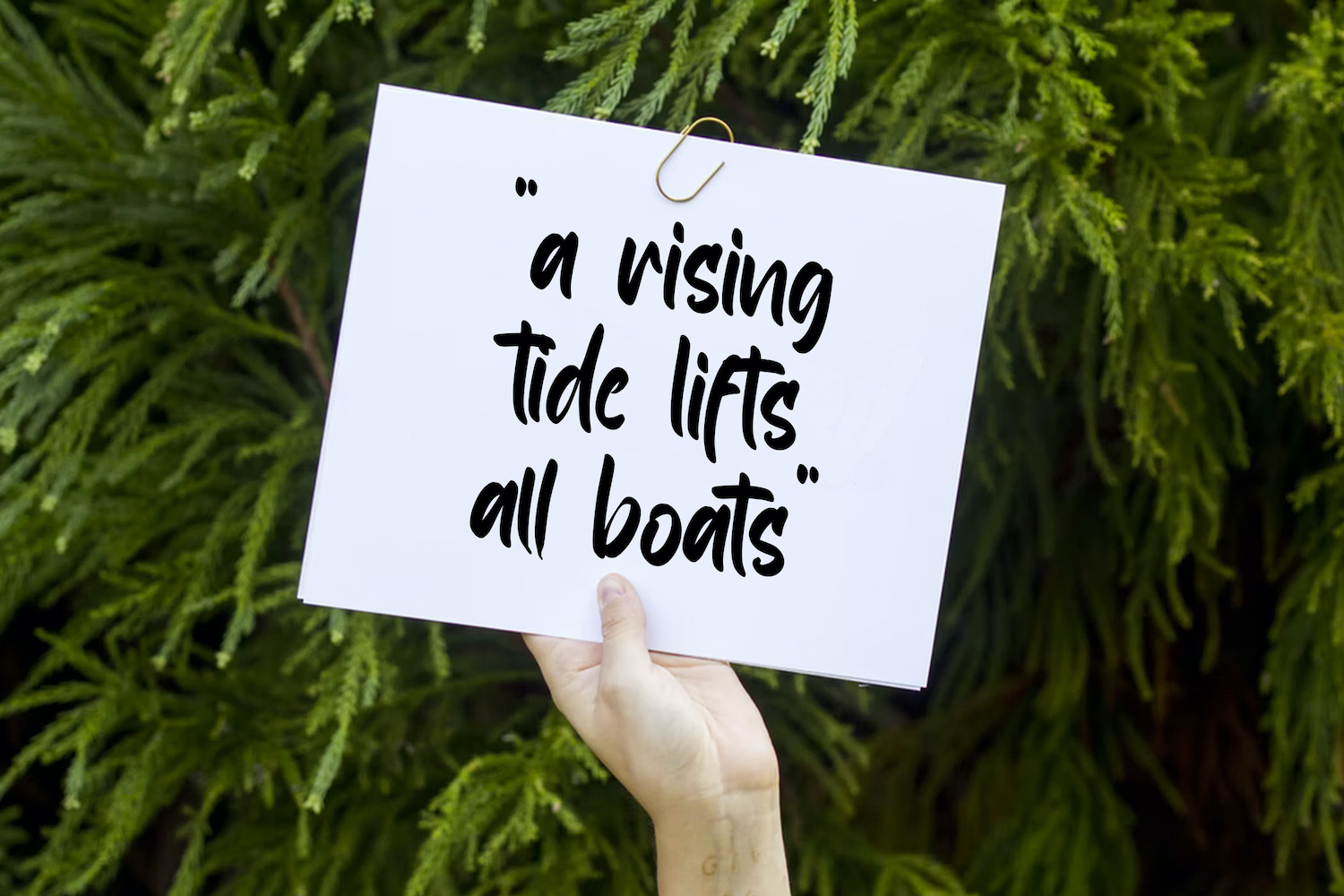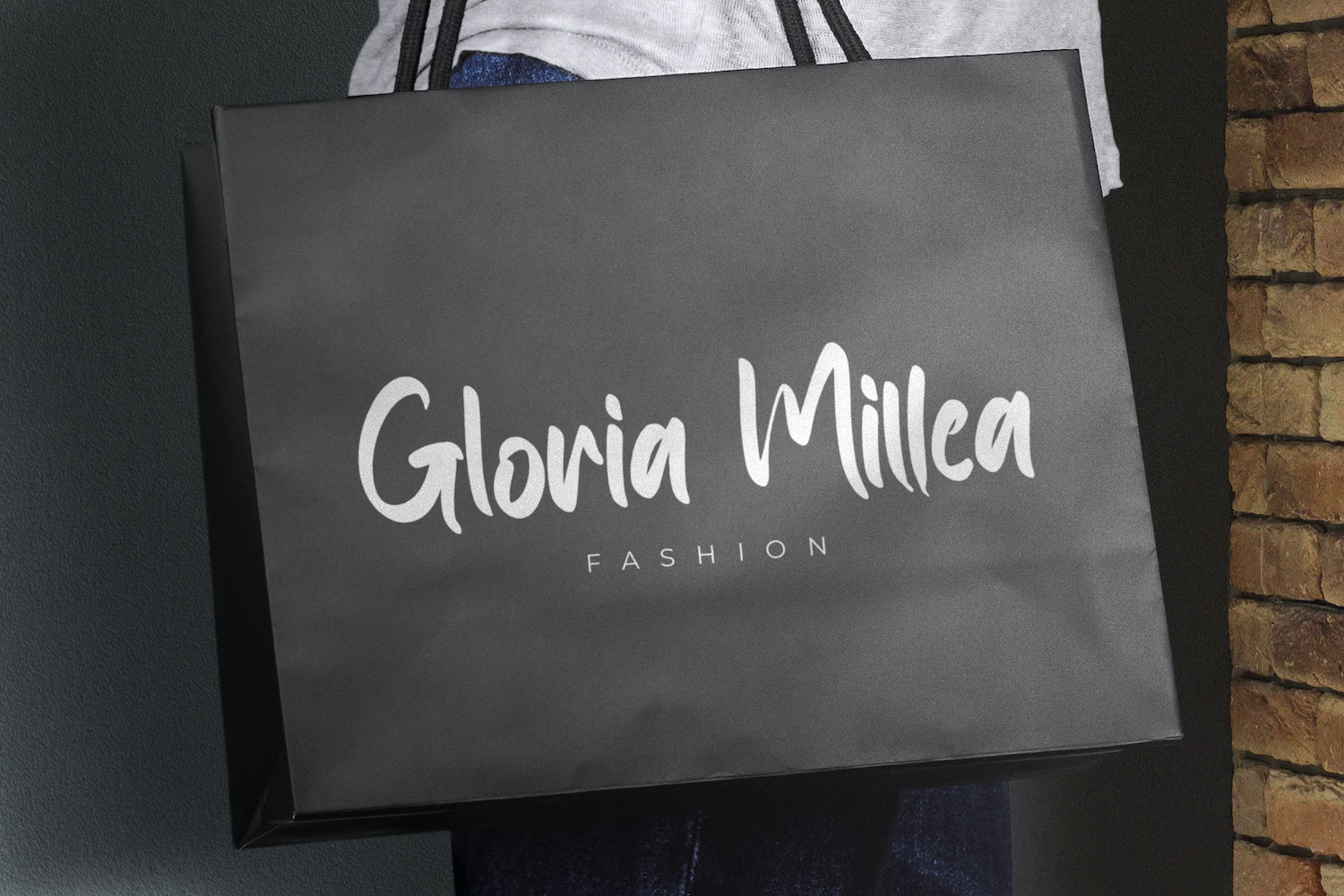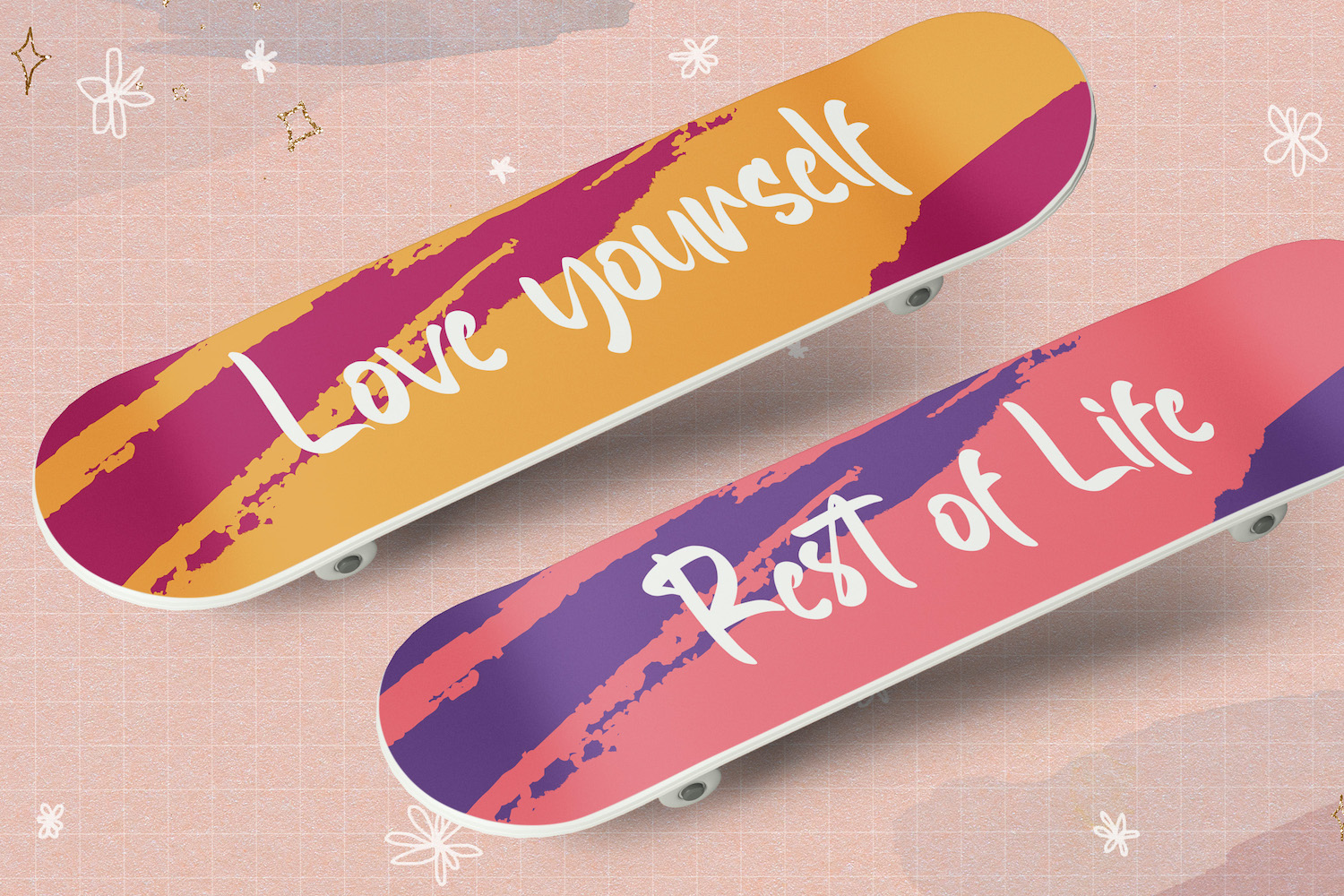
Sang Bintang is a handwritten display typeface by stringlabs that’s built to deliver a clear mood—bold, friendly, and unmistakably human (Free for Personal Use). It focuses on the feeling of real lettering: confident strokes, soft curves, and small natural irregularities that keep the text alive.
At first glance, it reads like a warm hand-painted note—casual, welcoming, and instantly eye-catching. The characters feel thick and expressive without becoming messy, giving your words a relaxed presence that still stands out on posters, covers, packaging, and social content.
The emotion it carries is upbeat and approachable: playful optimism with a touch of confident charm. It works especially well for brands that want to feel handmade, creative, youthful, or community-driven—think lifestyle labels, cafés, craft products, casual apparel, fun events, and creative studios. In tone, Sang Bintang leans strongly playful and casual, with a neutral-to-slightly-bold energy (thanks to its heavy strokes) that can read a bit more grounded than delicate. It’s not formal, and it’s best used where personality matters most—short headlines, logos, product names, and punchy quotes.
This font is a great match for creators, small businesses, and designers who want a friendly voice that’s easy to like—especially for audiences that respond to warm, modern, and informal branding.